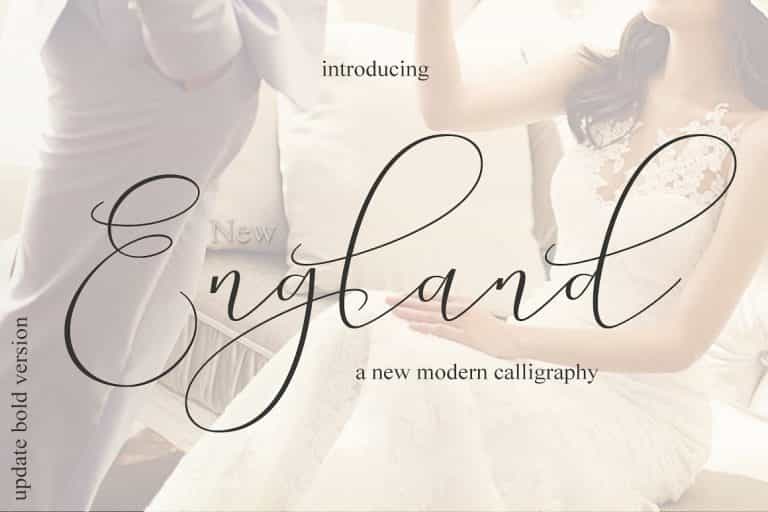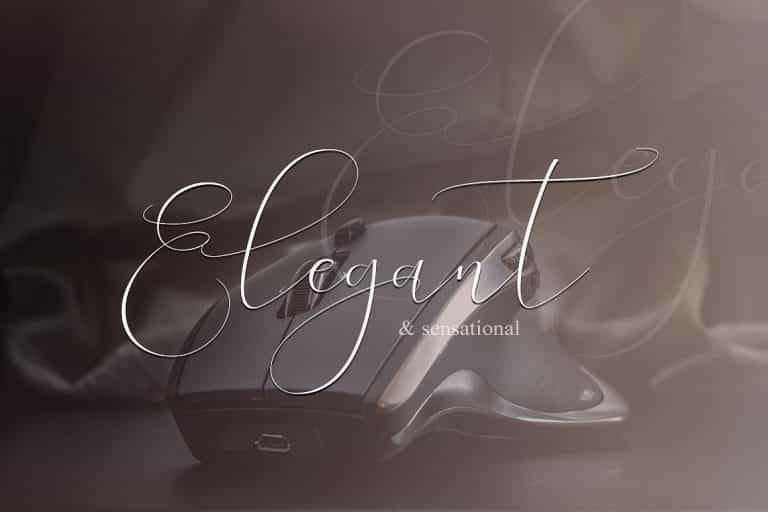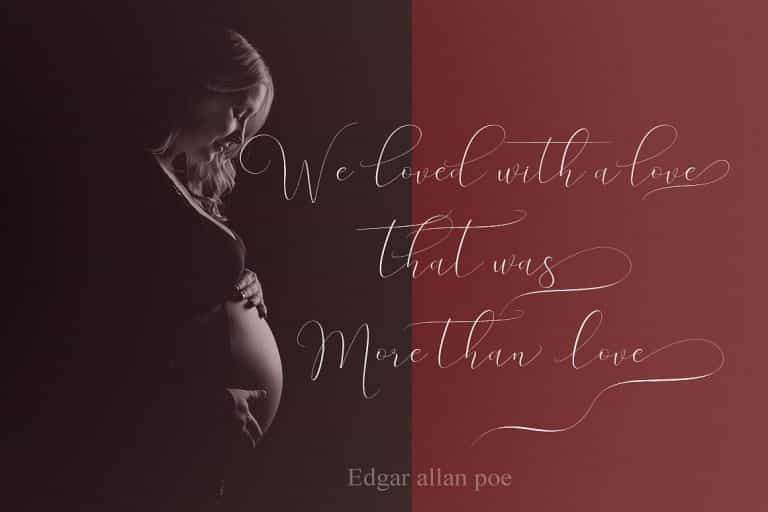
England – a modern calligraphy style. It is a creation and distribution of MrLetters. New England is a modern calligraphy font with the current handwriting style, which gives it a soft character. This makes the font suitable for design in signature series style, logo photography, wedding theme, beauty products and classic letters as well as neon lights with colorful effects.